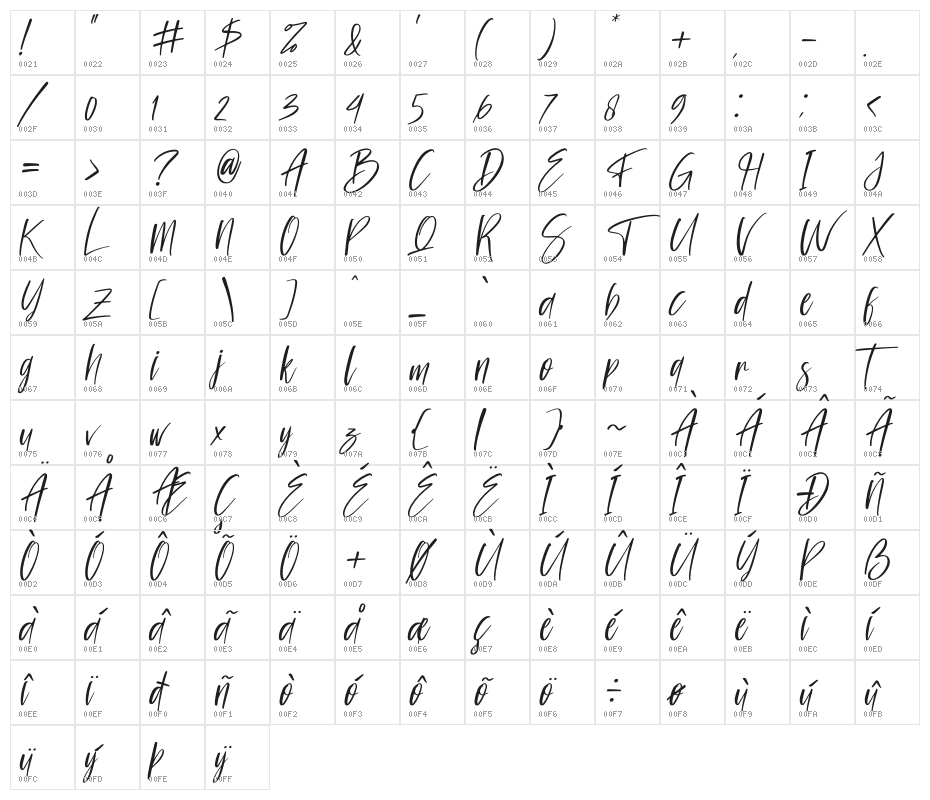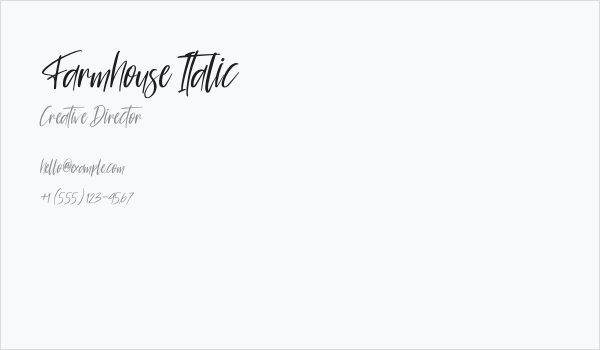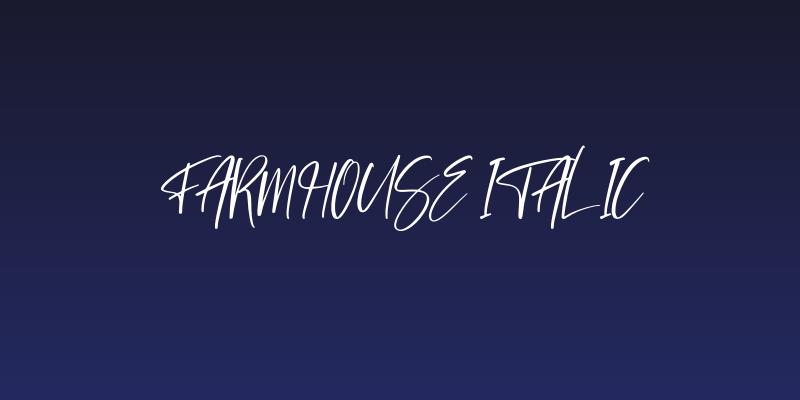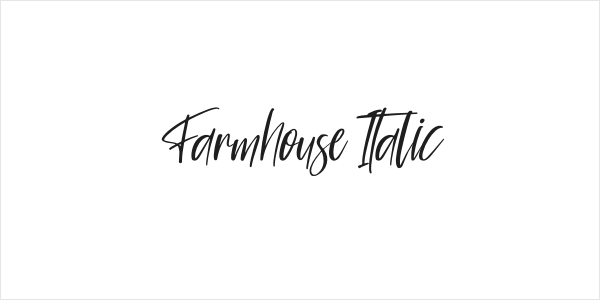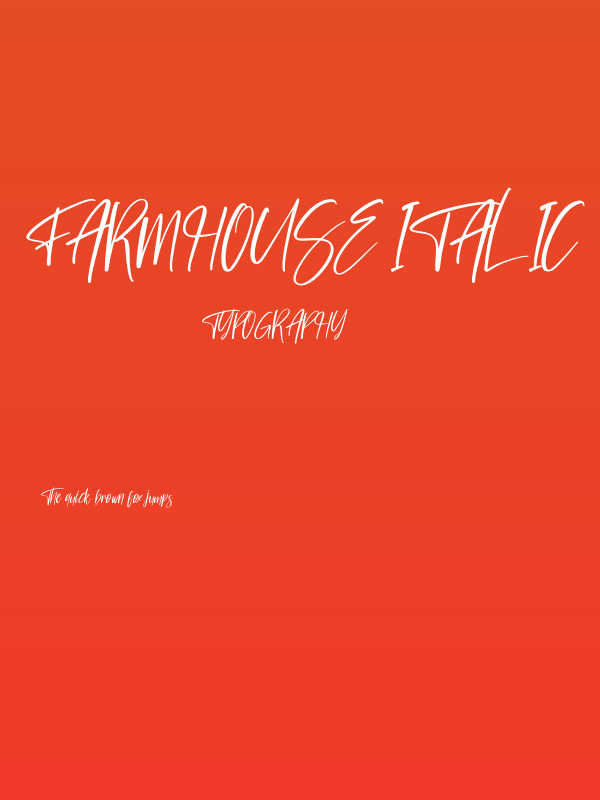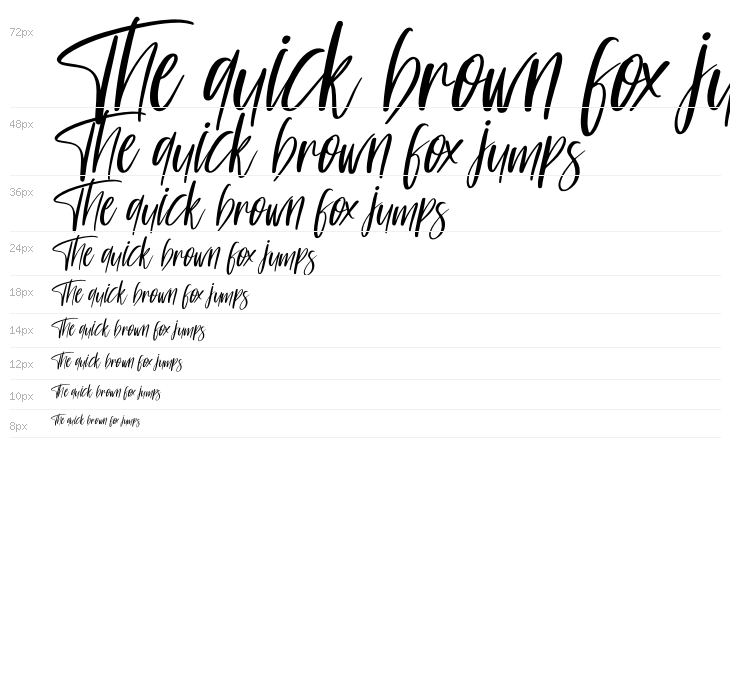
Farmhouse Italic Font
Farmhouse Italic Description
This font exudes a casual, handwritten style with a distinct italic slant, giving it a dynamic and flowing appearance. The letters are characterized by their elongated, slightly exaggerated strokes, which add a sense of movement and energy. The uppercase letters maintain a consistent height, while the lowercase letters vary slightly, adding to the informal and approachable feel. The numbers and special characters are crafted with the same fluidity, ensuring a cohesive look across all elements. The overall design is both playful and elegant, making it suitable for a variety of creative applications.